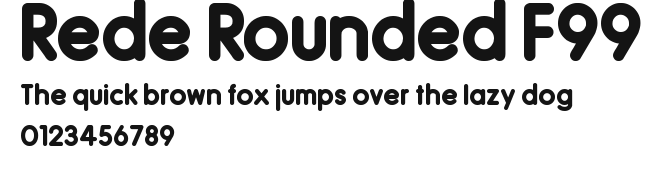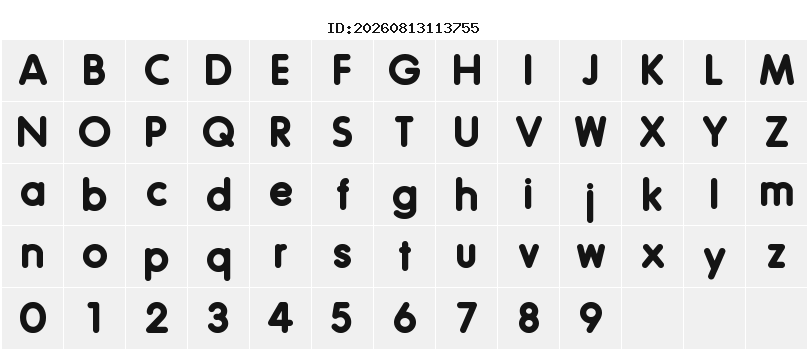
• Font Name: Rede Rounded F99
• Full Font Name: Rede Rounded F99
• Version: Version 1.00 January 14, 2009, initial release
About Rede Rounded F99.ttf
Rede Rounded F99.ttf is a modern, elegant sans-serif font designed for ultimate readability and visual harmony. Perfect for branding, headlines, web design, and print materials.